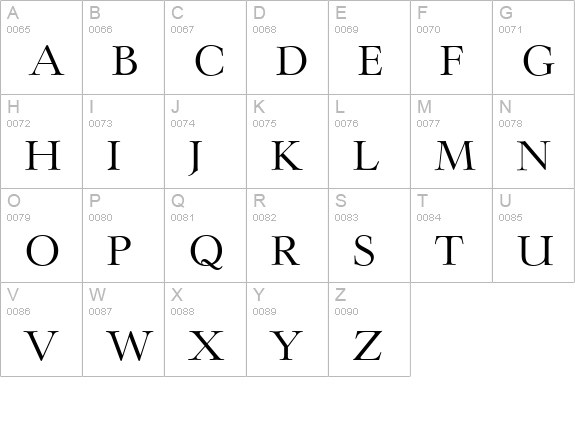
LingwoodSerial-Regular is the standard, neutral variant in the LingwoodSerial typeface family \xE2\x80\x94 well suited to general body text, paragraphs, and standard typographic work.
LingwoodSerial-Regular font is a modern and sleek typeface that exudes elegance and sophistication. Its clean lines and balanced proportions make it perfect for a wide range of design projects, from logos to branding to editorial layouts. With its timeless appeal and versatility, LingwoodSerial-Regular font adds a touch of class to any design. The best part? LingwoodSerial-Regular font is completely free to download at FontsMarket.com. This means you can elevate your designs without breaking the bank. Whether you're a professional designer or a hobbyist, this font is a must-have in your collection. So don't hesitate to grab this beautiful typeface and take your designs to the next level.